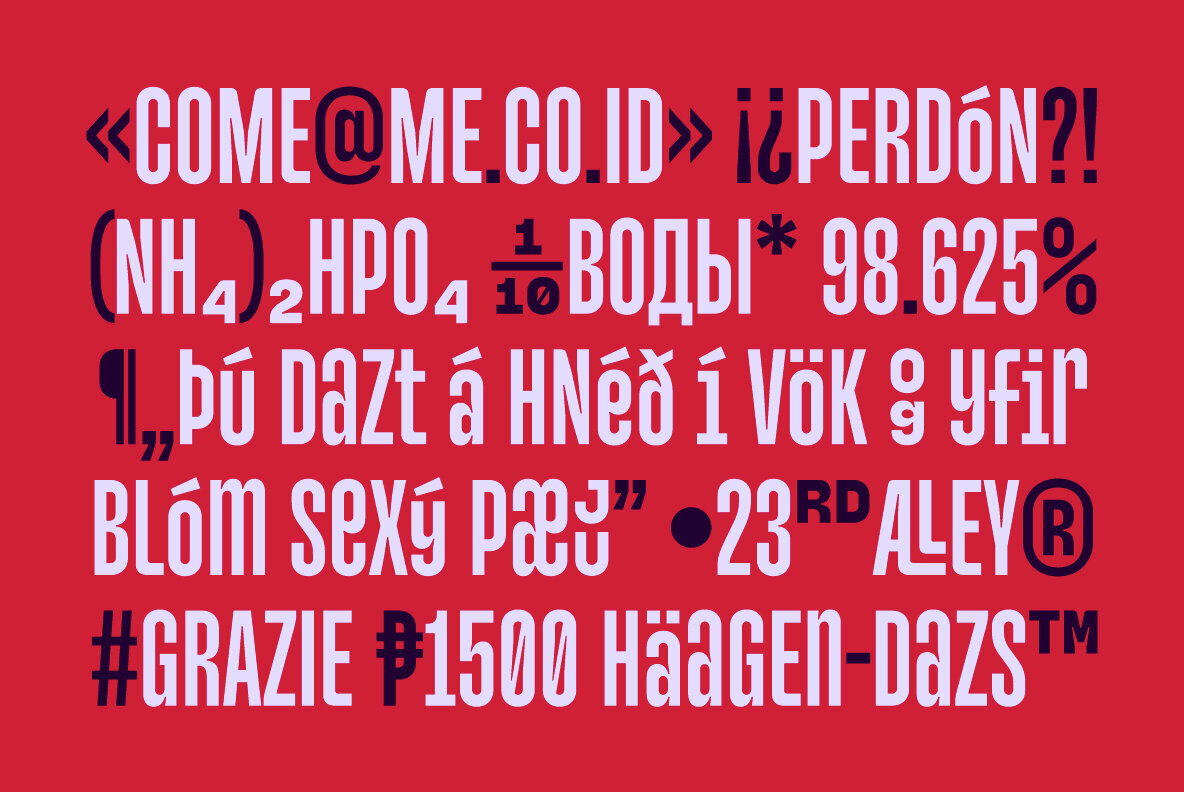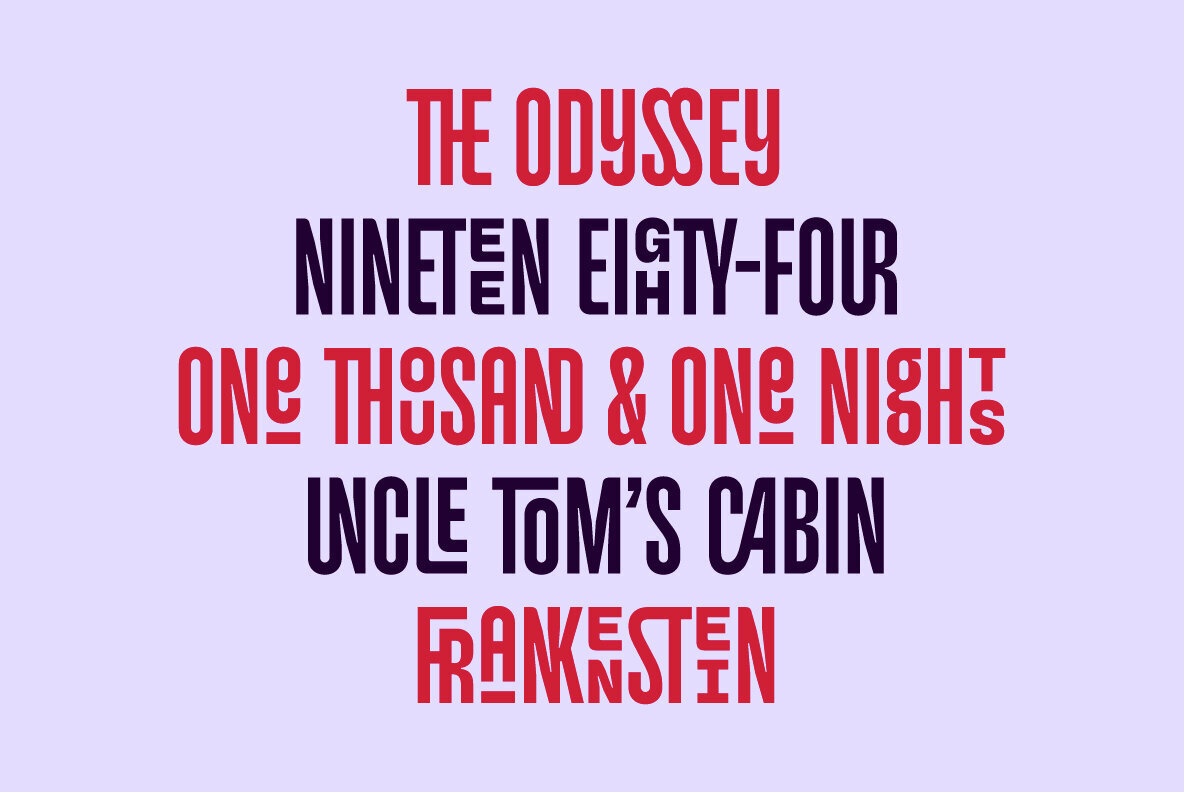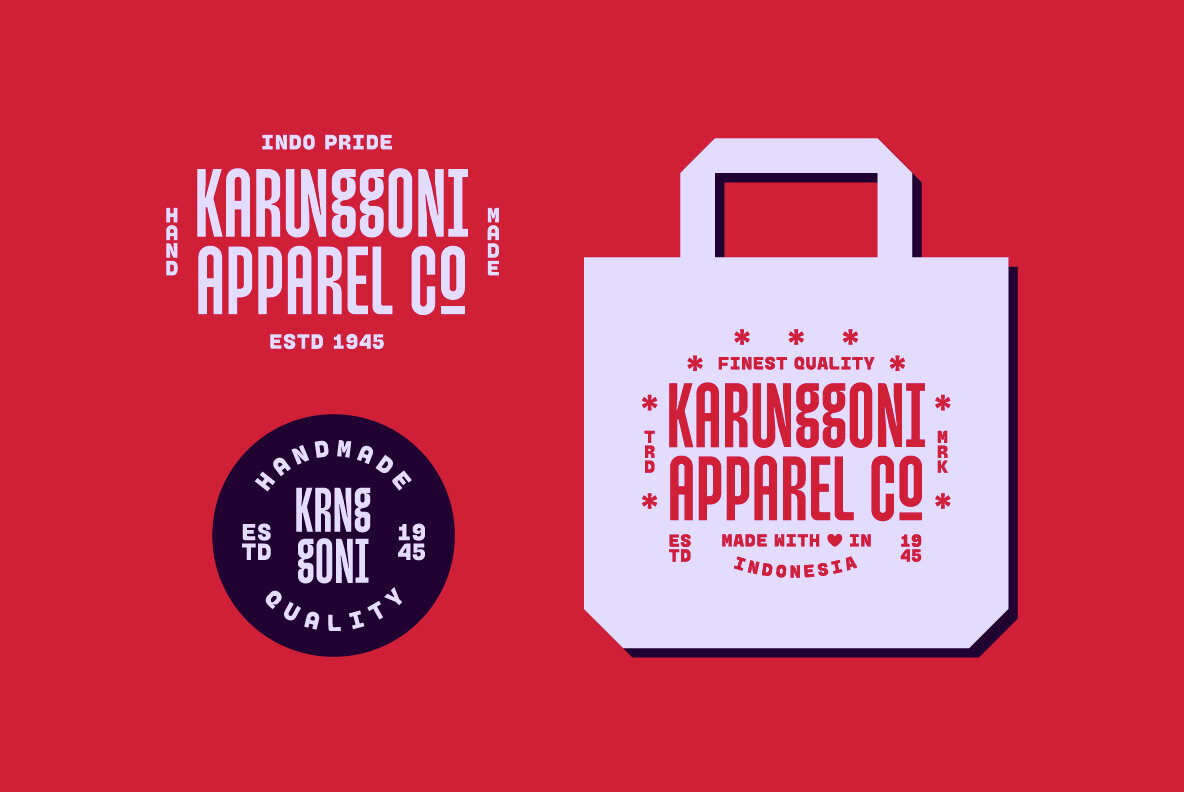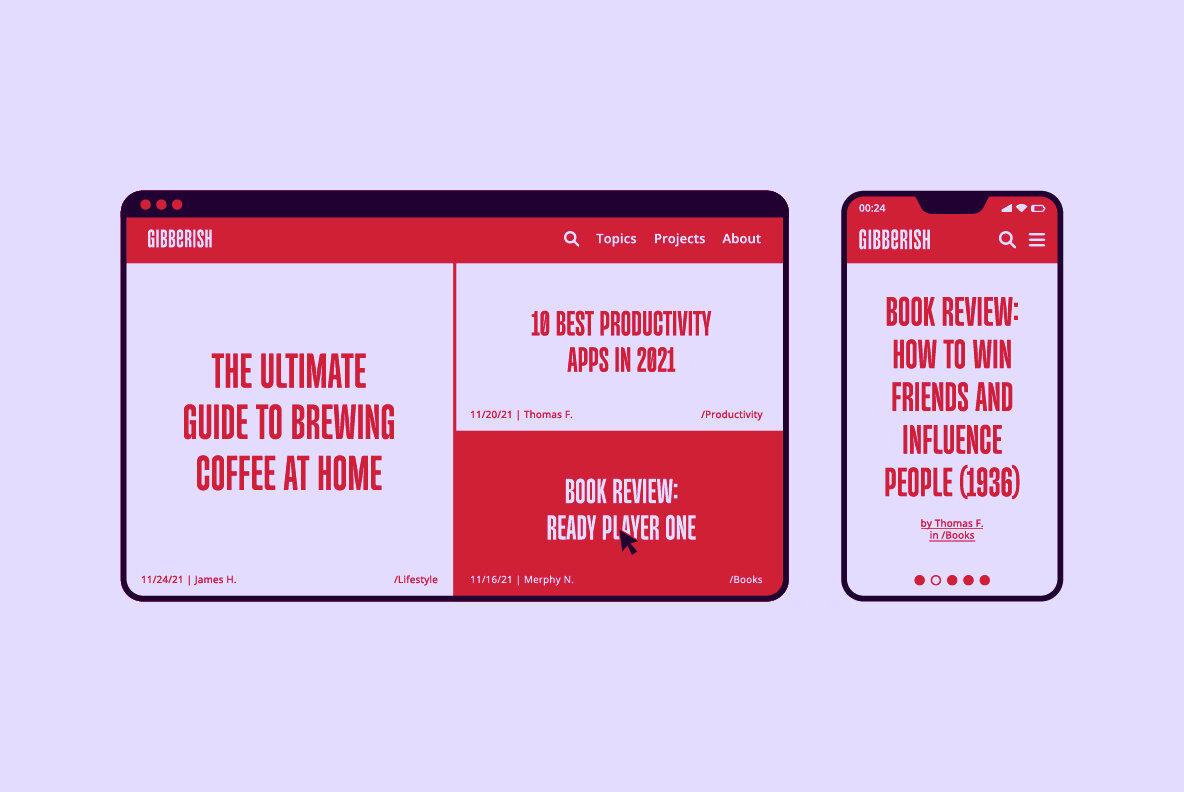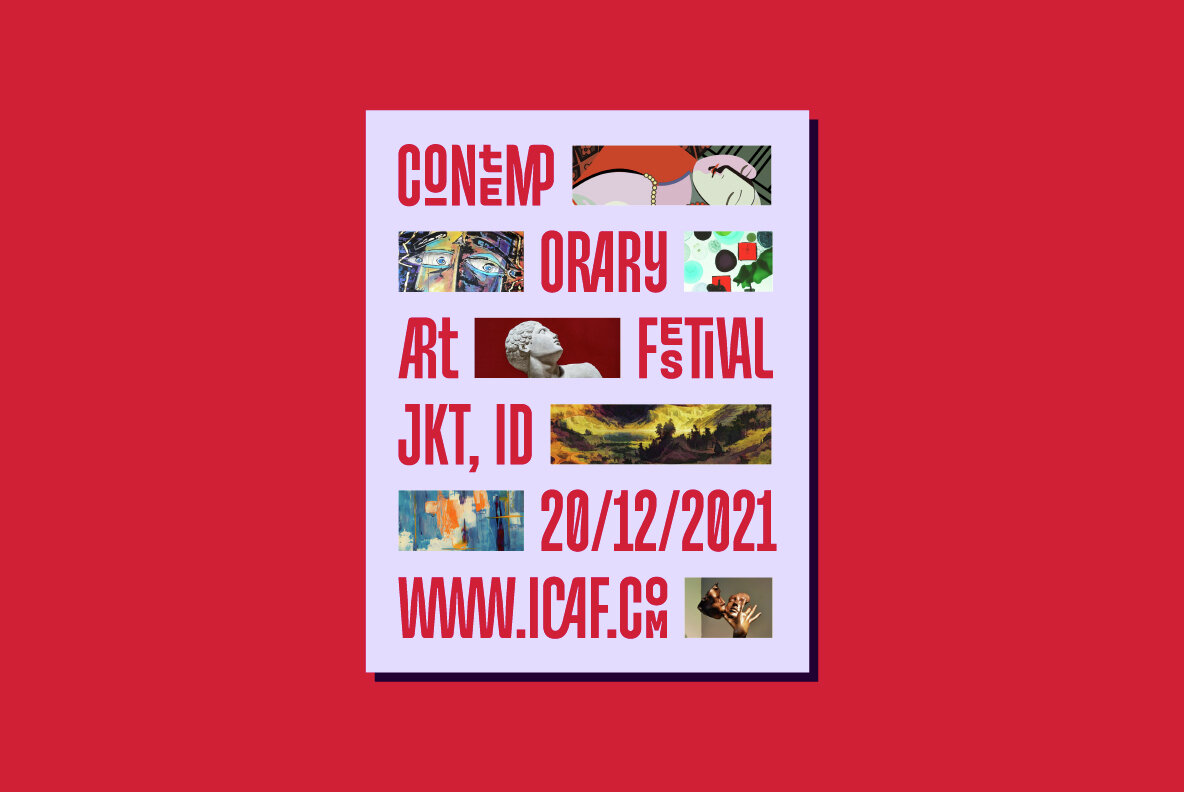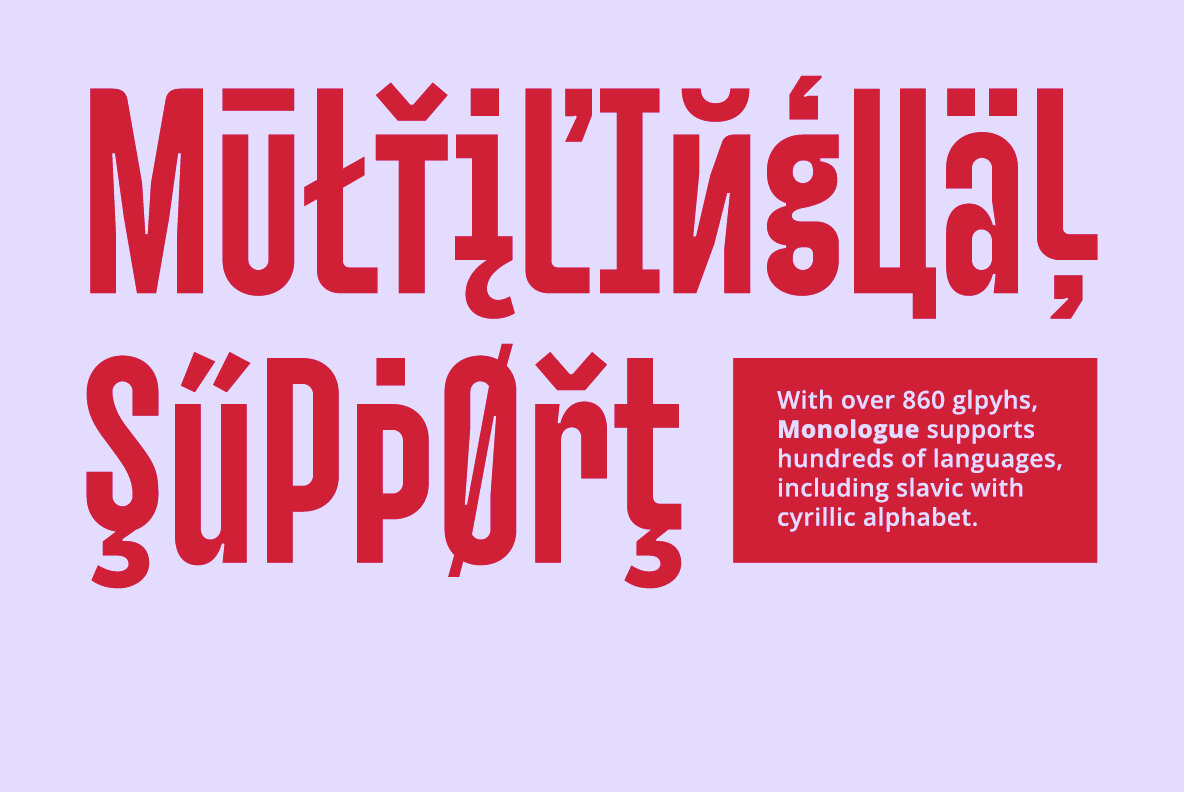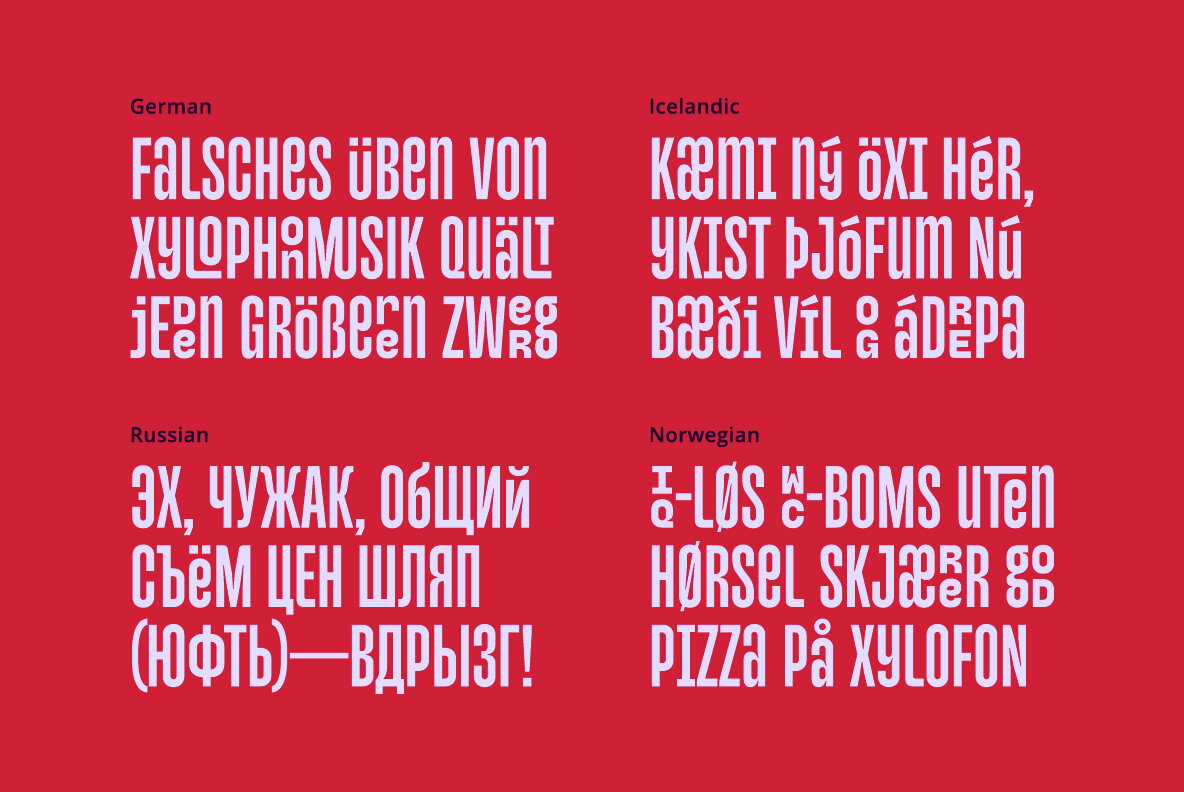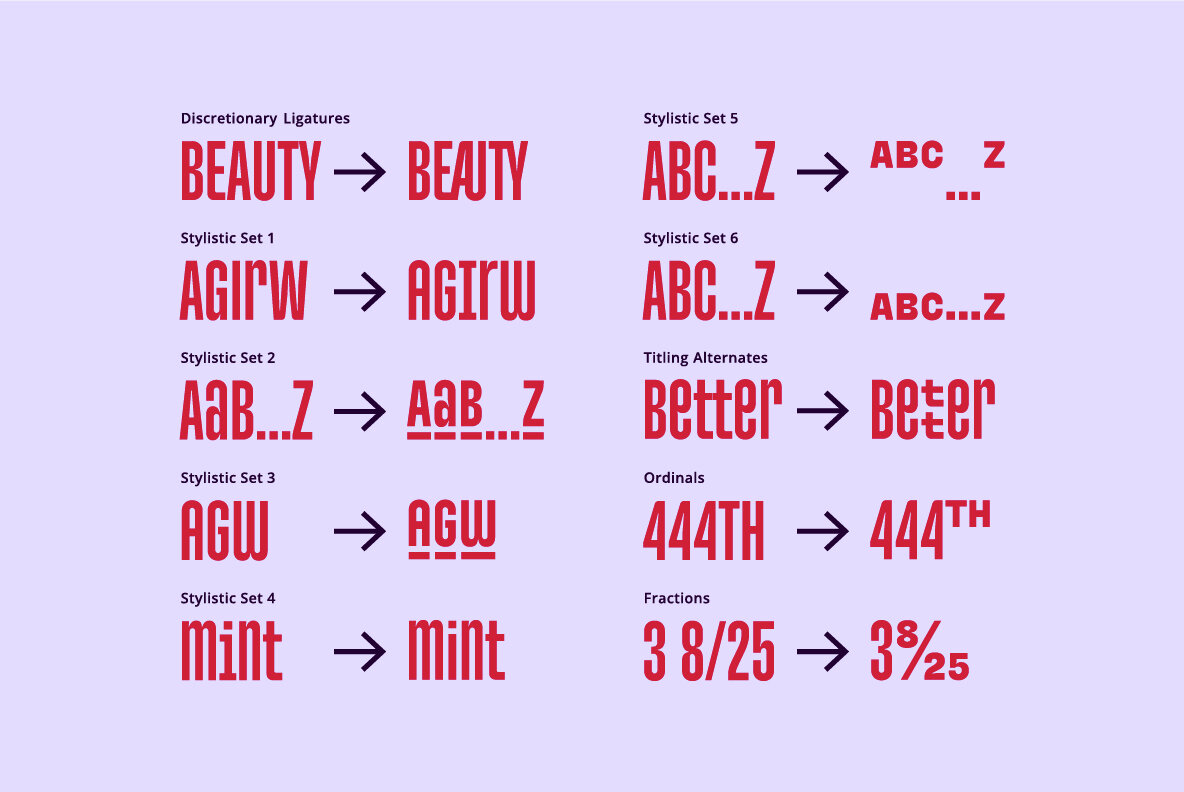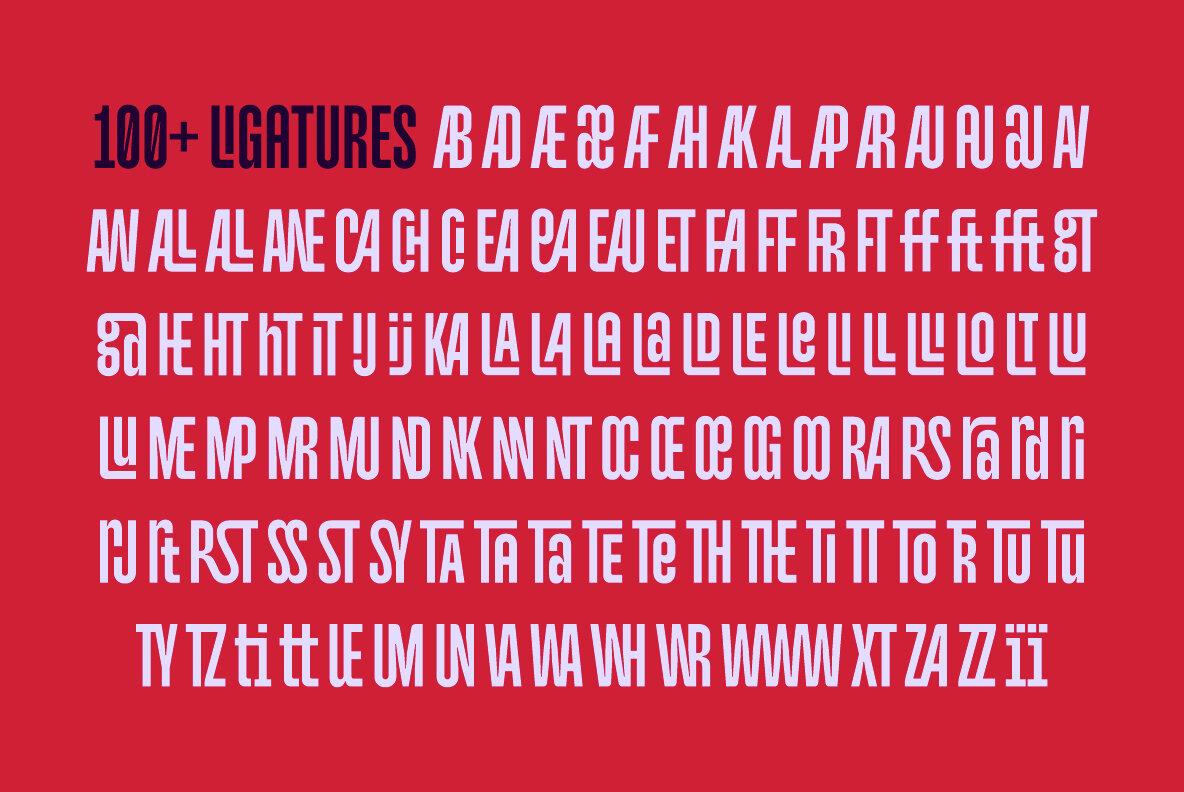
Monologue Font
Monologue Regular
Monologue is a simple, condensed sans serif font with bold and complex personality. It was purposely crafted to be used in large point sizes, although it doesn't lose it's magic in small point sizes. It is perfect for headline, billboard, magazines, website, titles, poster, branding, and logos. With tons of ligatures, alternates, and other features to choose from, you can make your project stand out from the rest. FEATURES: